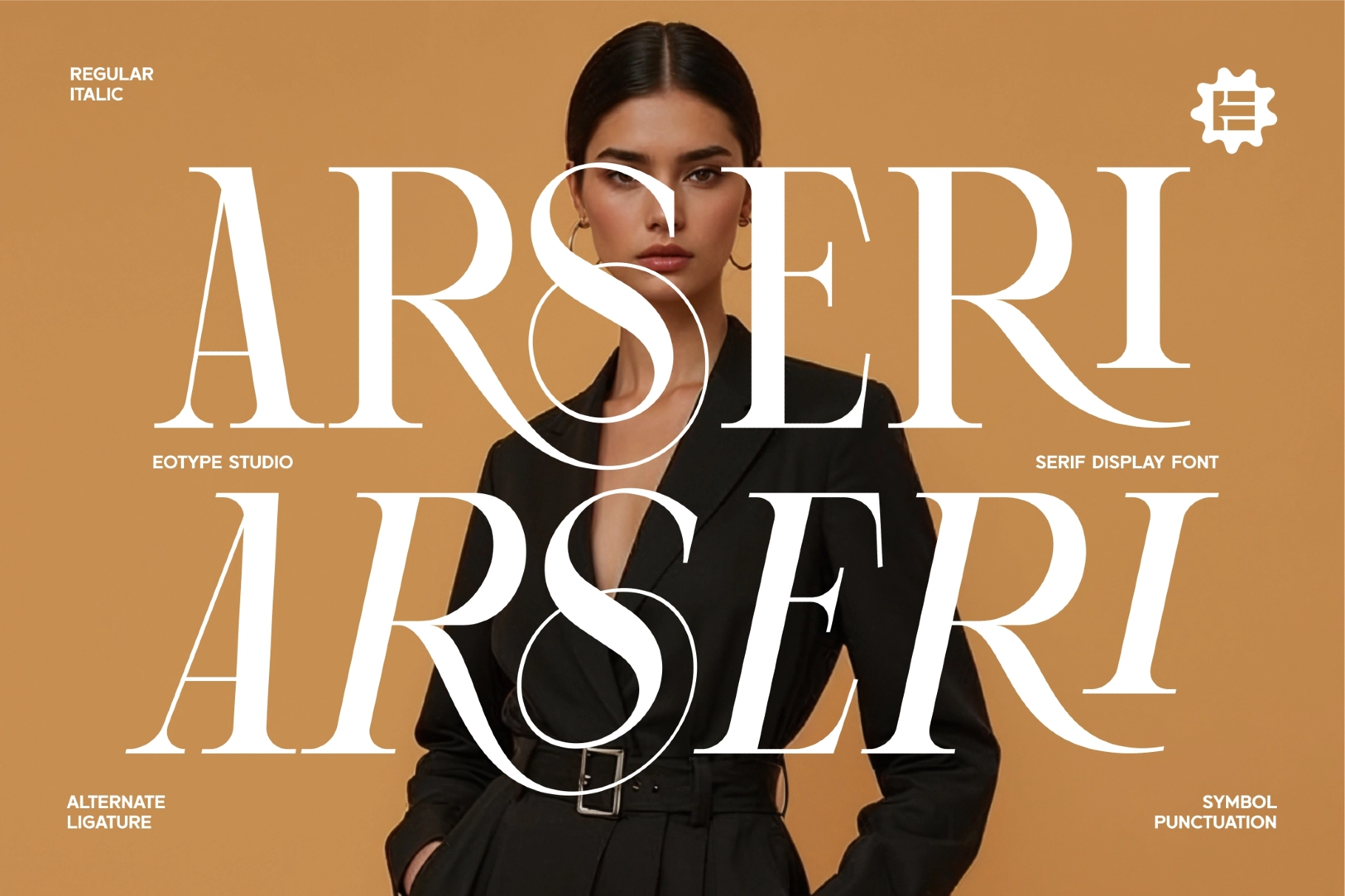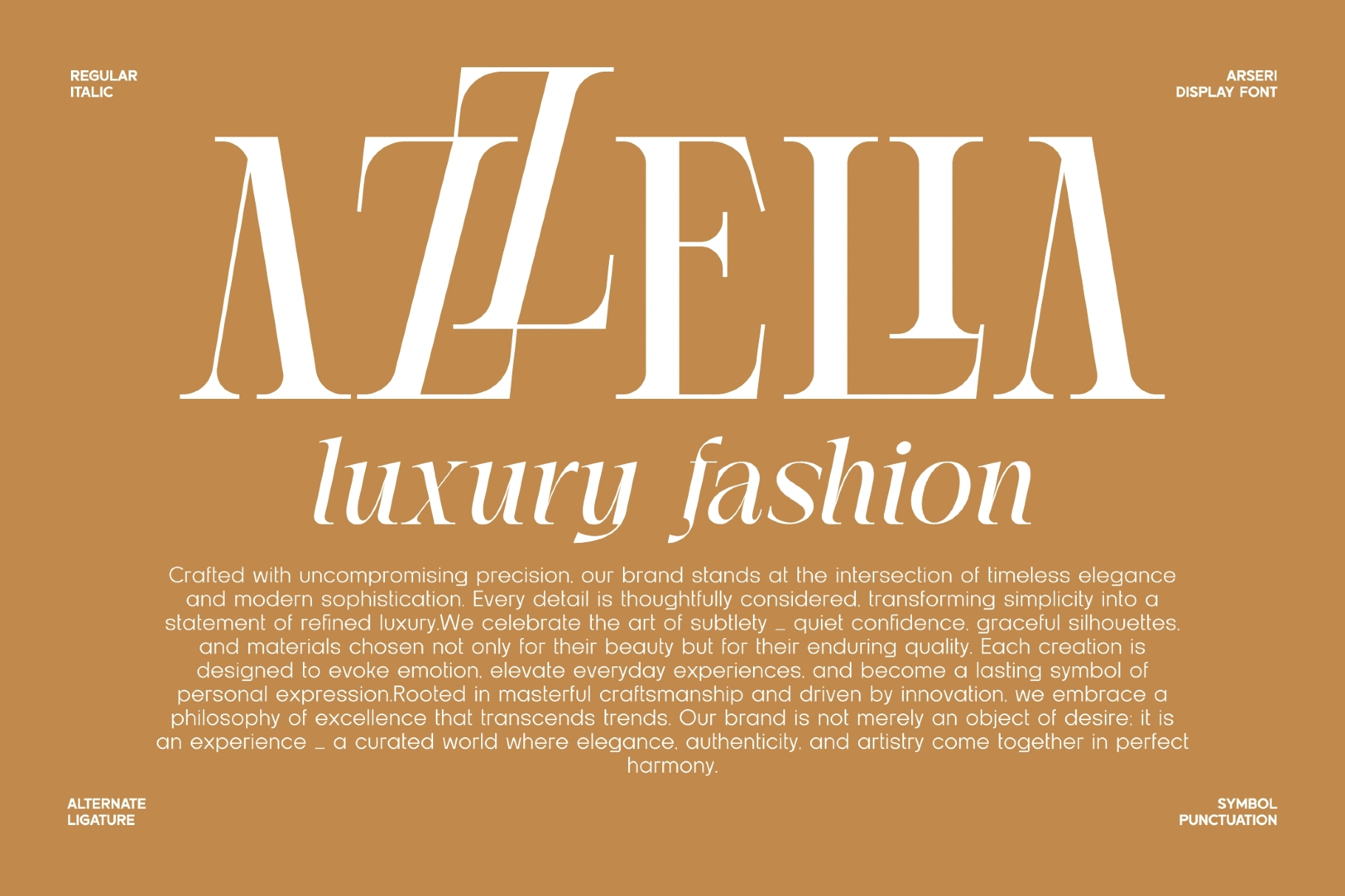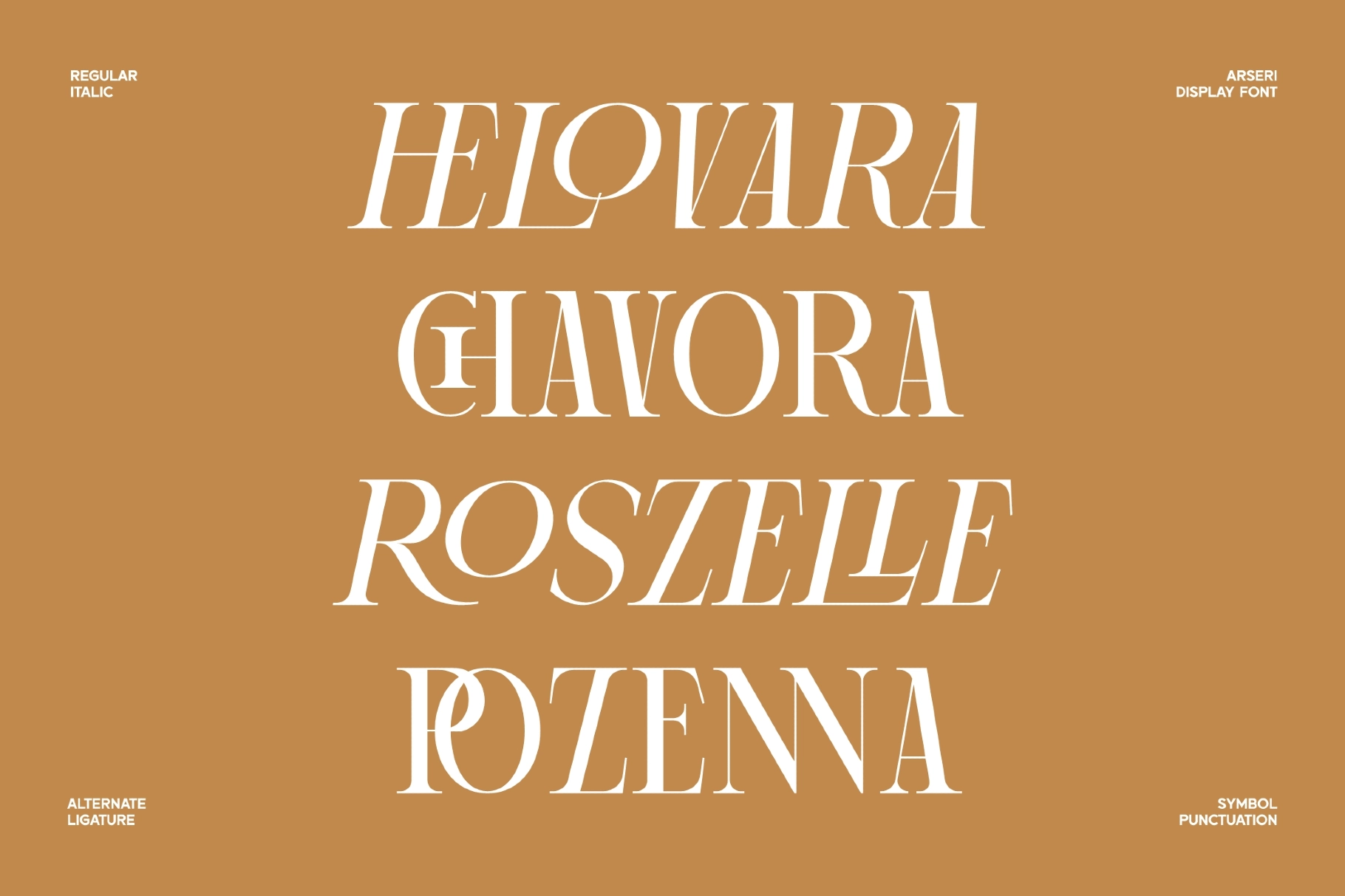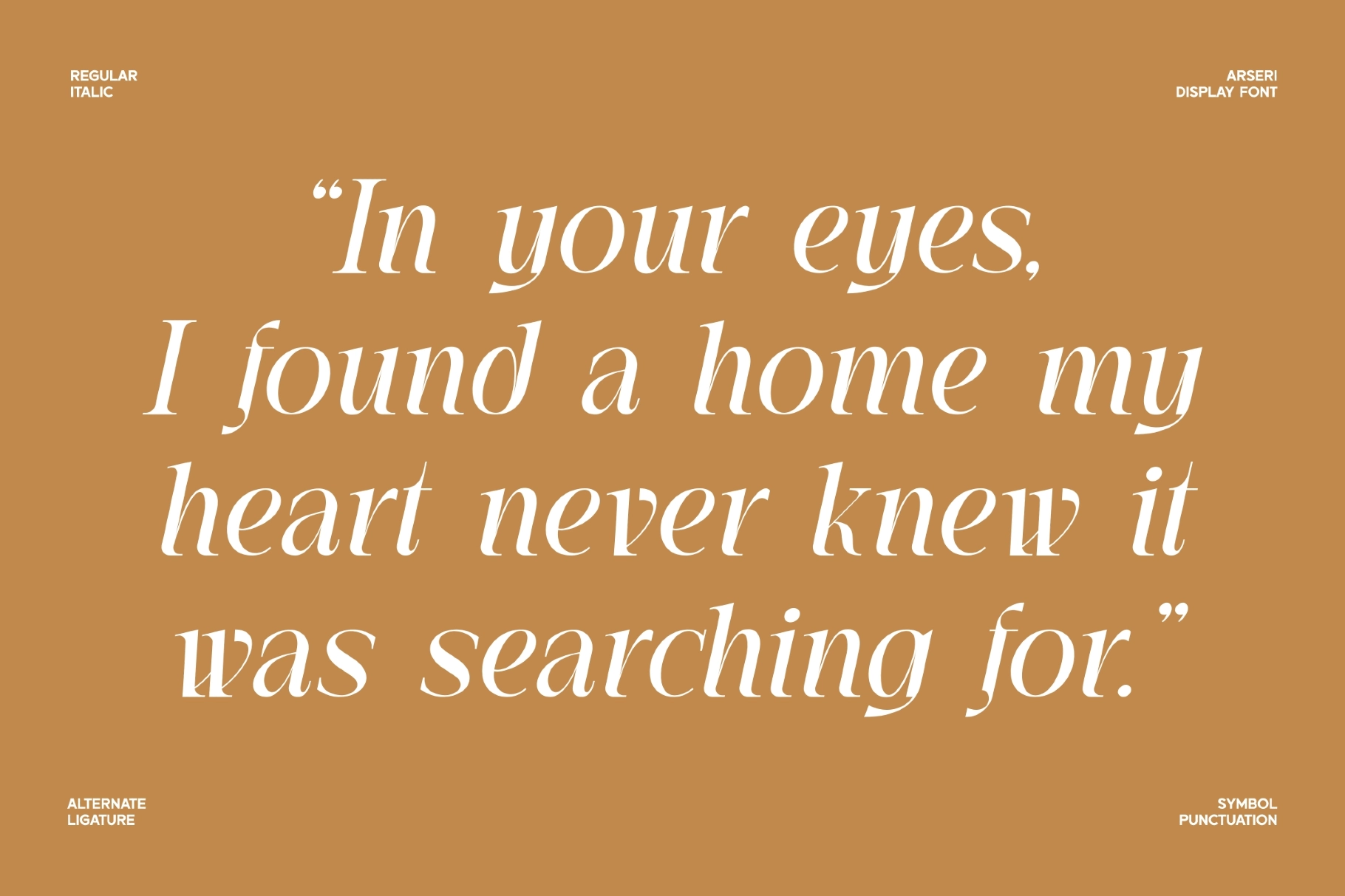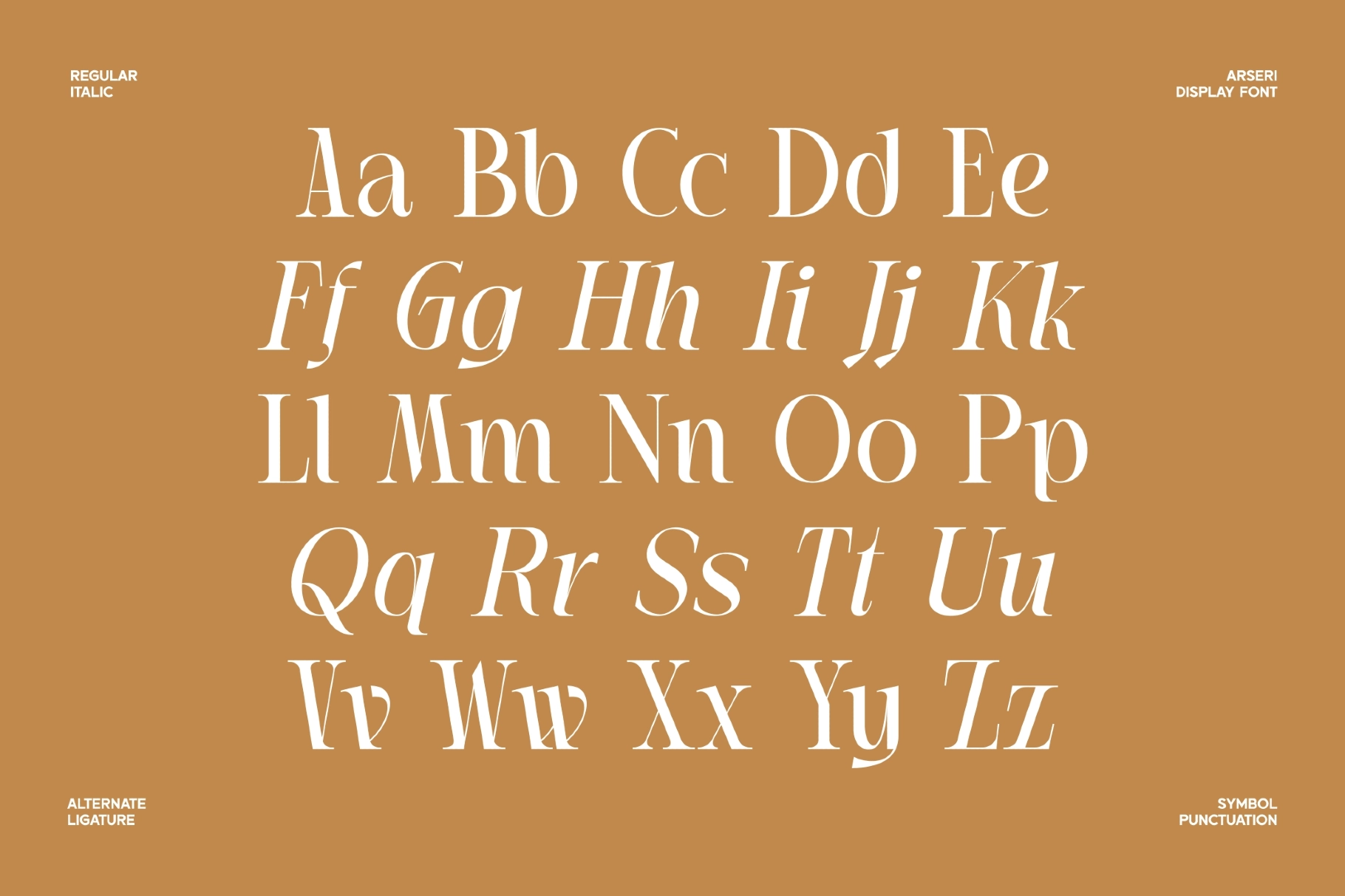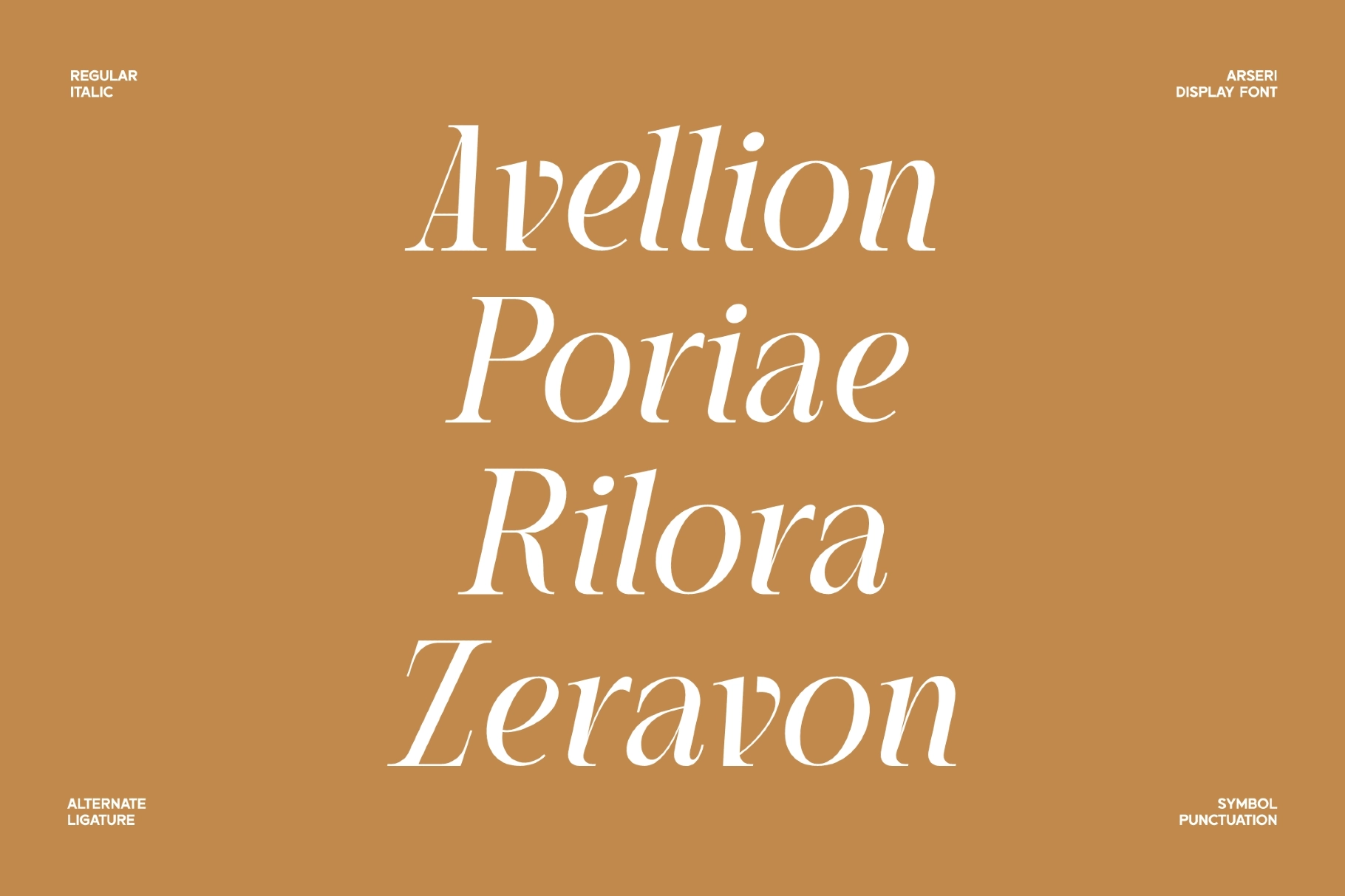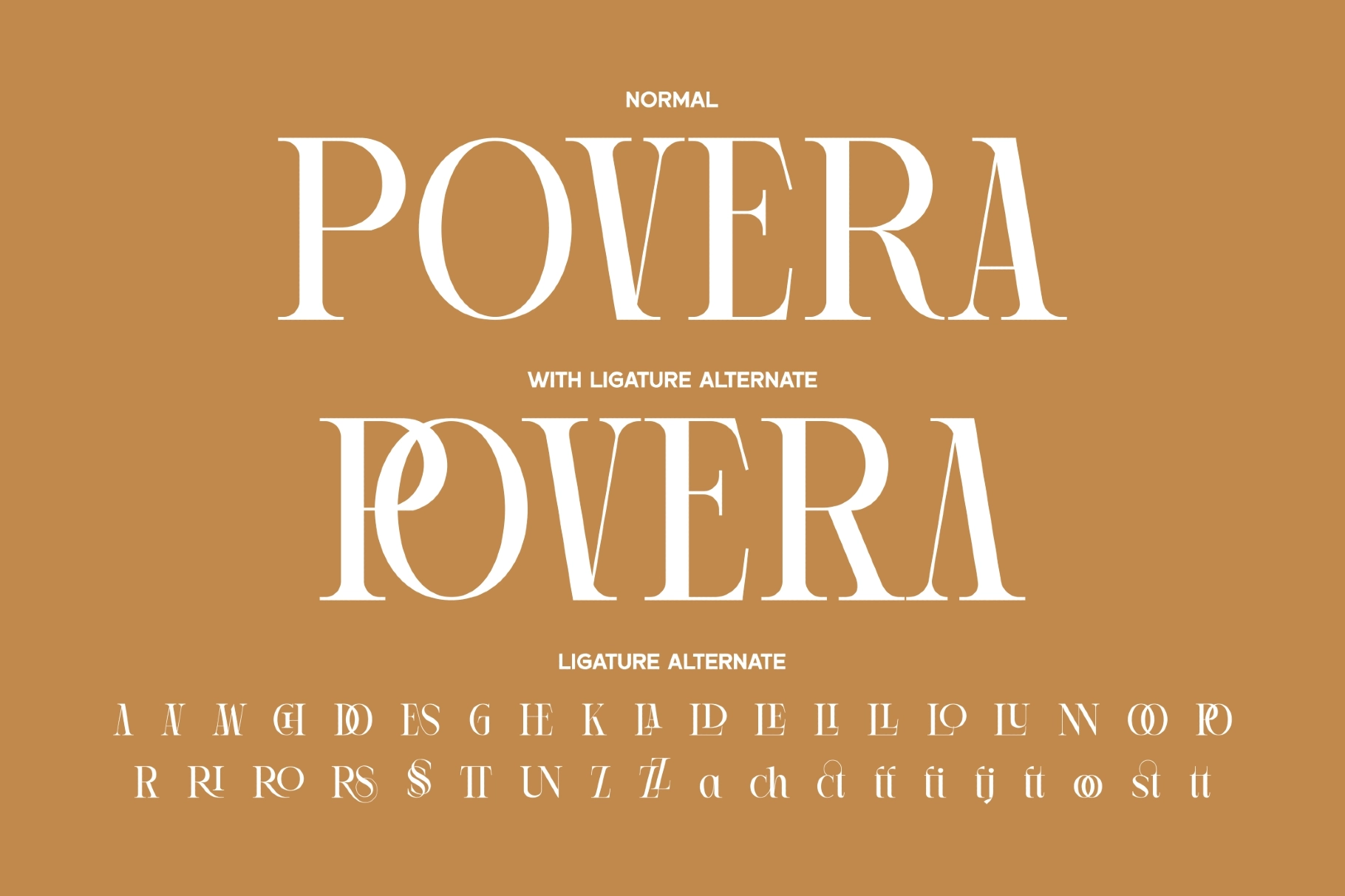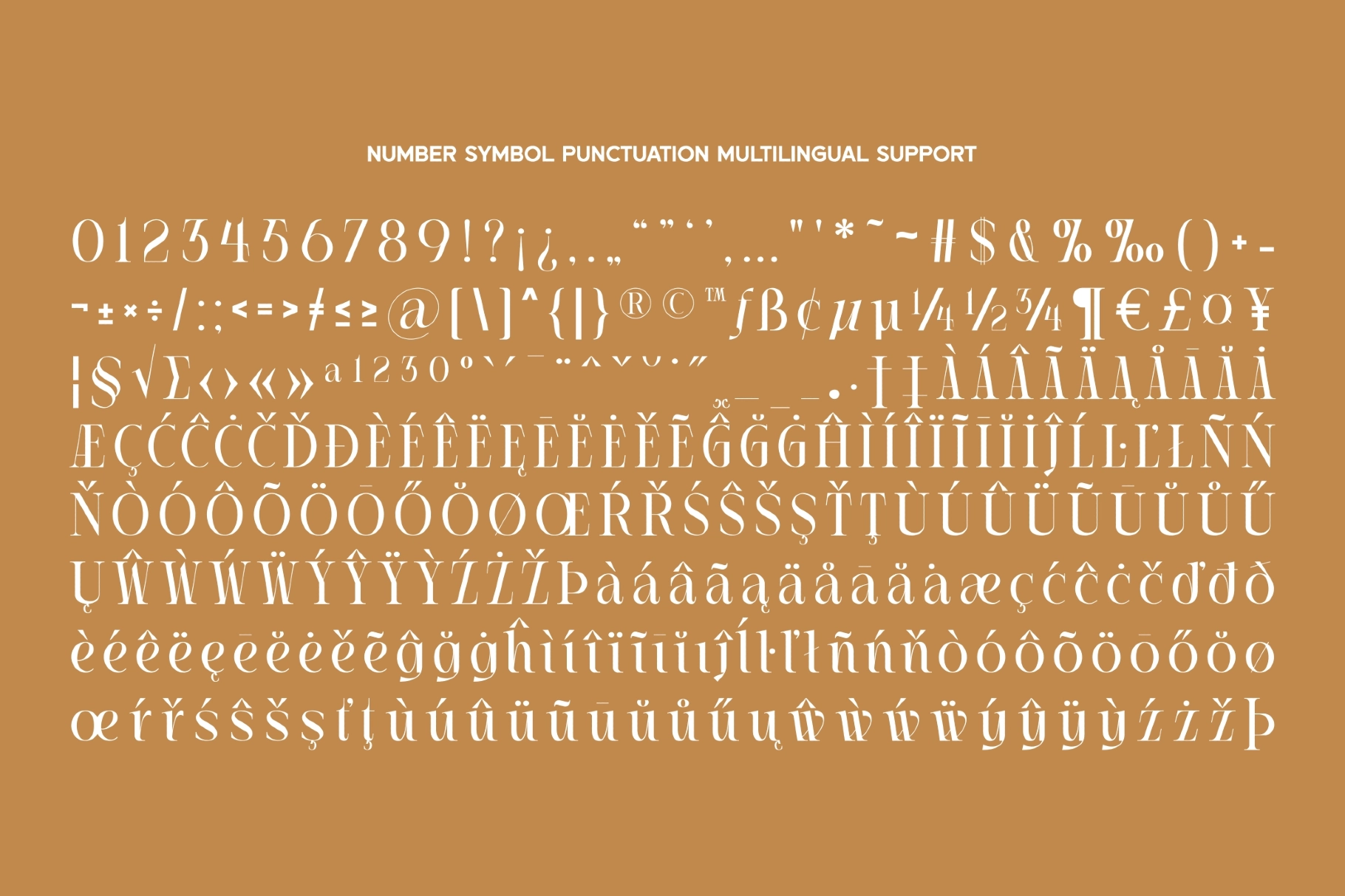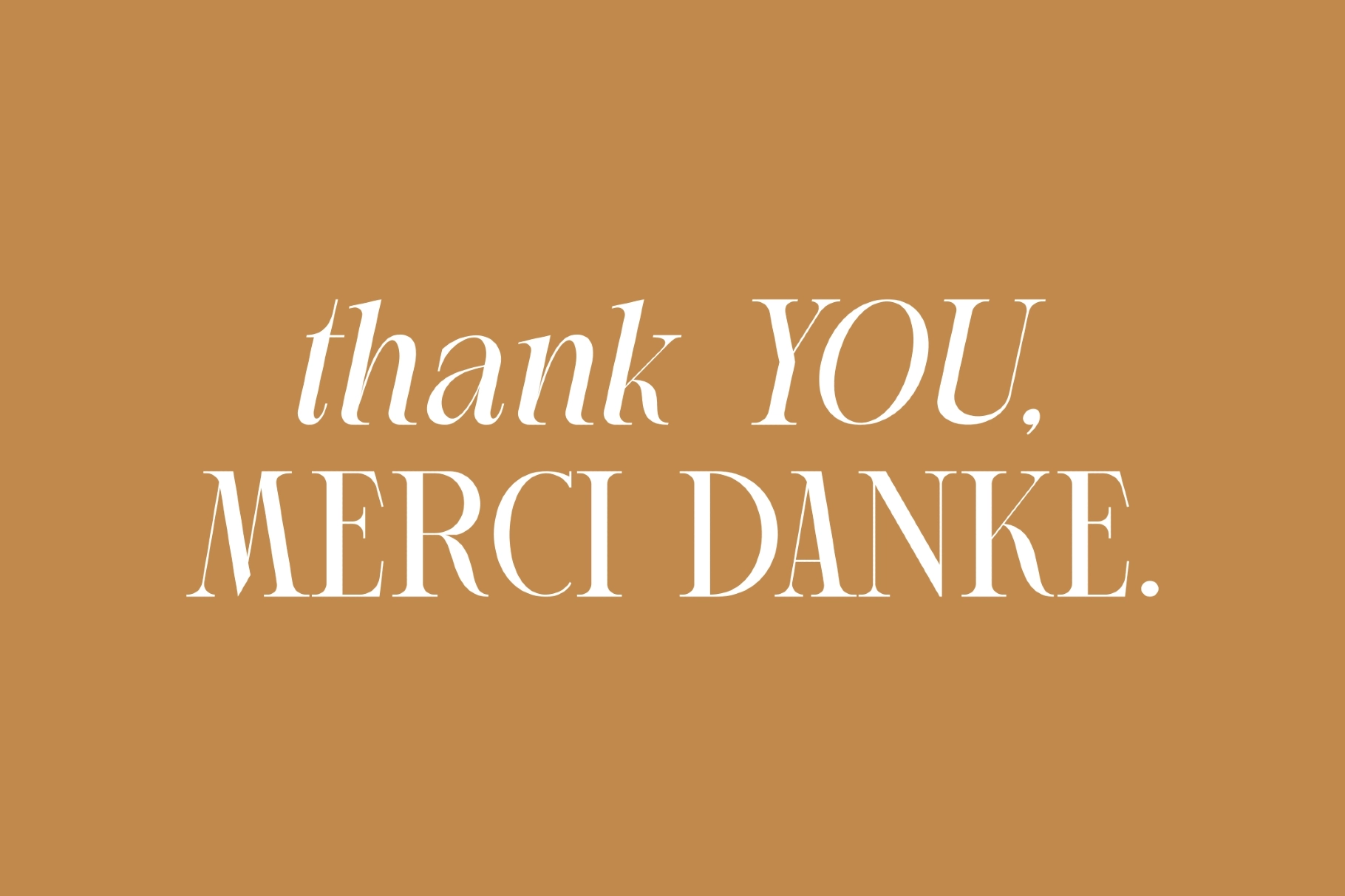
Arseri - Luxury Serif Display Font
Arseri
A luxury serif with high-contrast strokes, sharp vertical stress, and sculpted curves made for grand typographic moments. Its tall letterforms, elegant italics, and dramatic alternates give logos, headlines, packaging, and editorial spreads a polished fashion-house tone without trying too hard in public.
Arseri includes Regular and Italic styles, along with expressive ligatures and alternate glyphs for custom wordmarks and refined title settings. Use it for beauty branding, boutique logos, magazine covers, lookbooks, perfume packaging, wedding stationery, social media campaigns, art direction boards, restaurant identities, product labels, and more.
- 2 styles: Regular, Italic
- Ligatures & Alternates